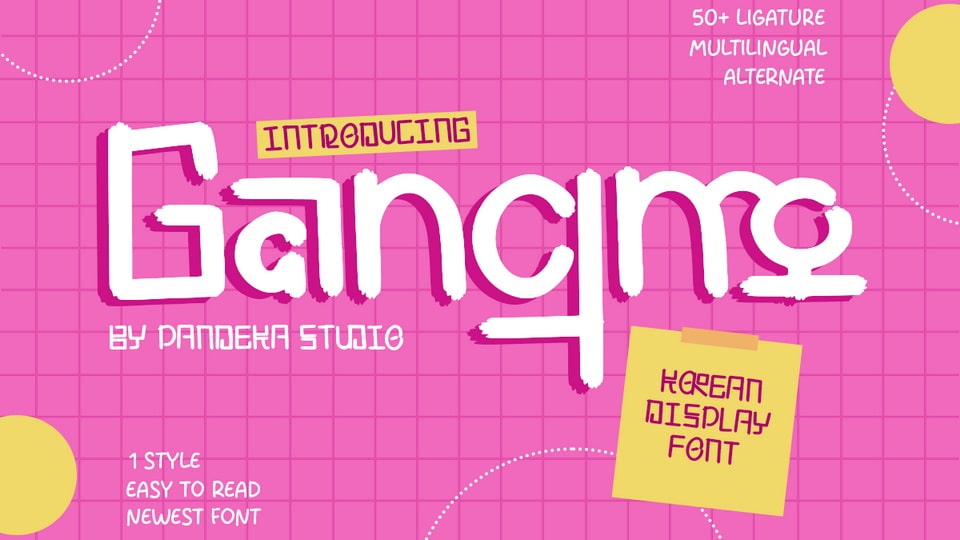
Download Gangmo font, a Korean-inspired display typeface with a bold and playful character, perfect for capturing the vibrant spirit of modern design.